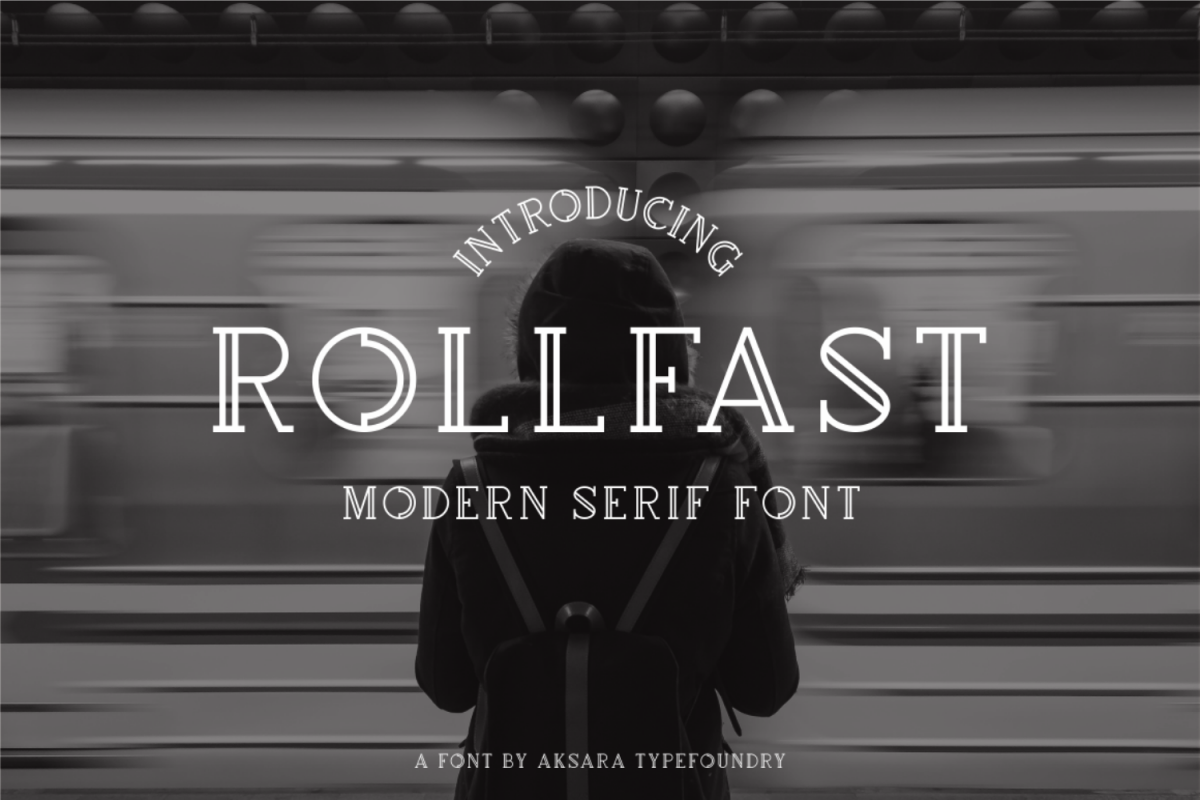
Rollfast Font
Rollfast is modern serif font, which is combining the style of classic typography with an modern style. Perfect for your word art typography, poster, labels, t shirt or modern logo.Rollfast Features :
• Numerals & Punctuations
• Accents (Multilingual characters)